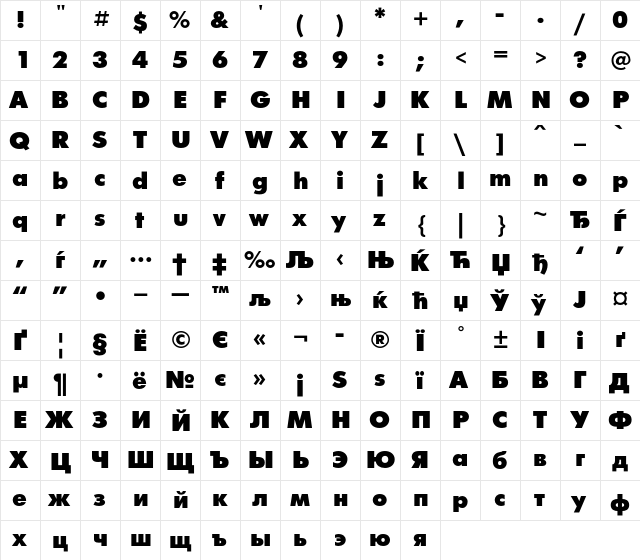
FuturaFuturisXC Regular
Design Context for FuturaFuturisXC Typeface
FuturaFuturisXC channels digital-age aesthetics through its sharp, structured letterforms — ideal for brands that want to signal innovation.
Pro Tip: Try FuturaFuturisXC with generous letter-spacing in UI labels and navigation — the geometric forms benefit from room to breathe.